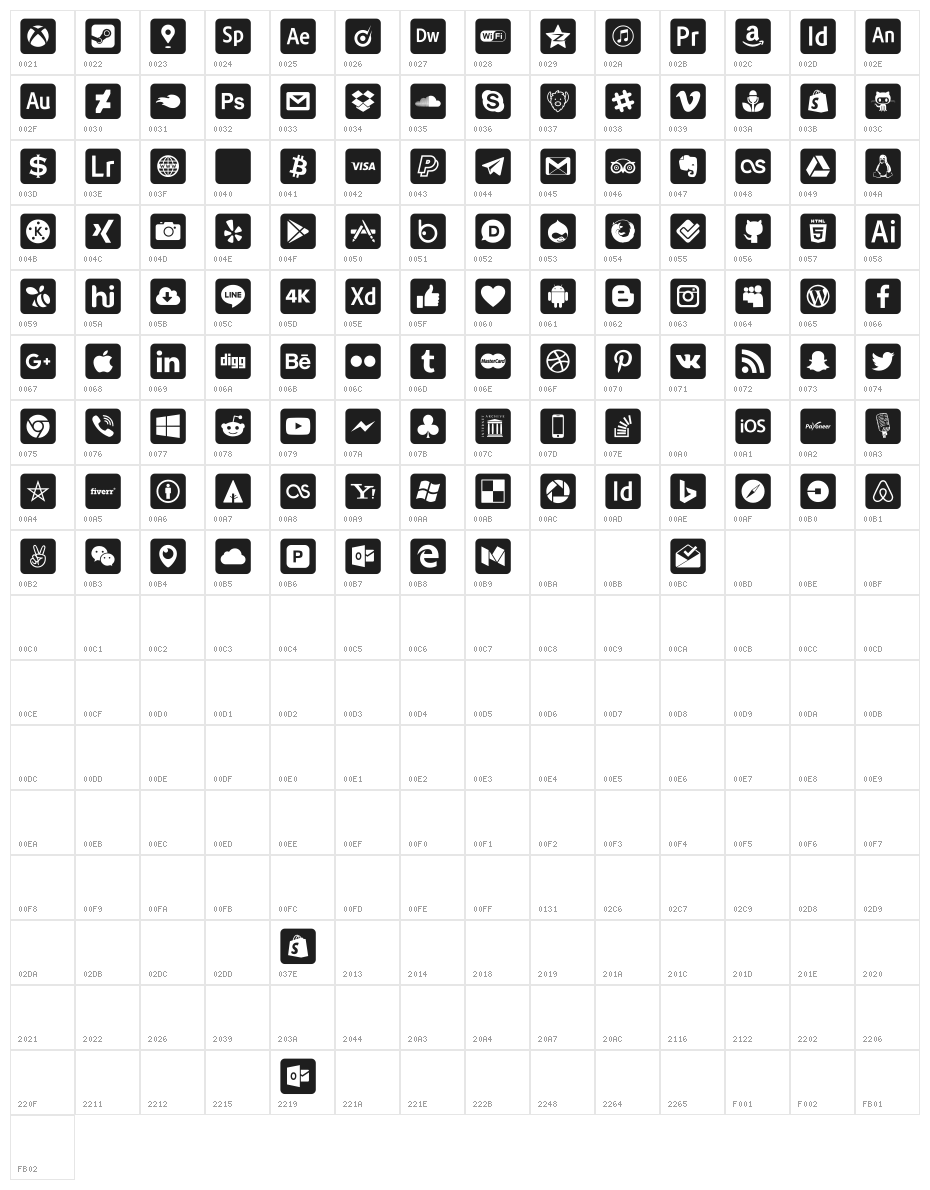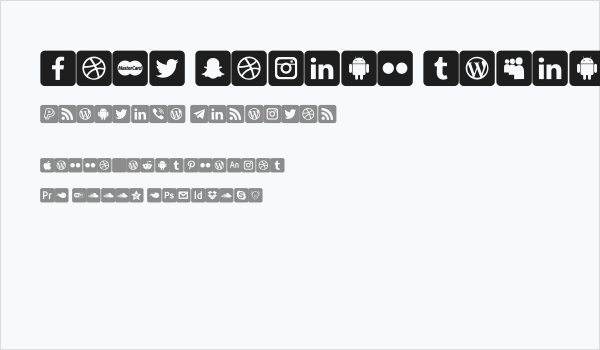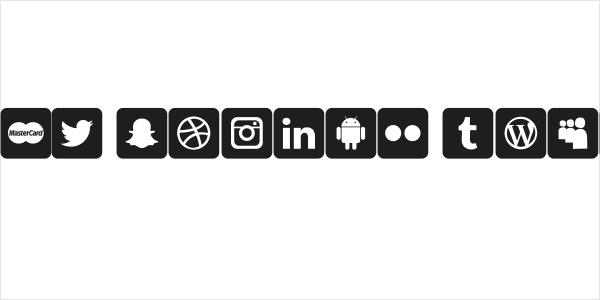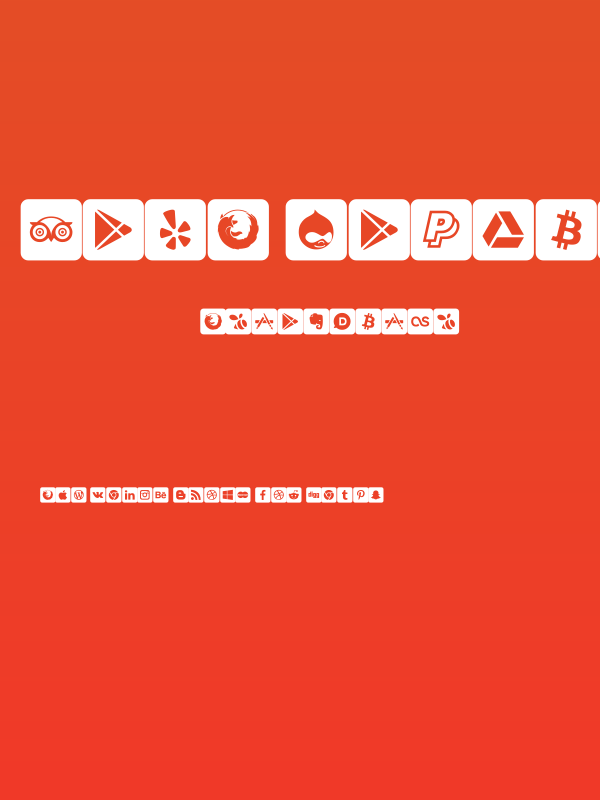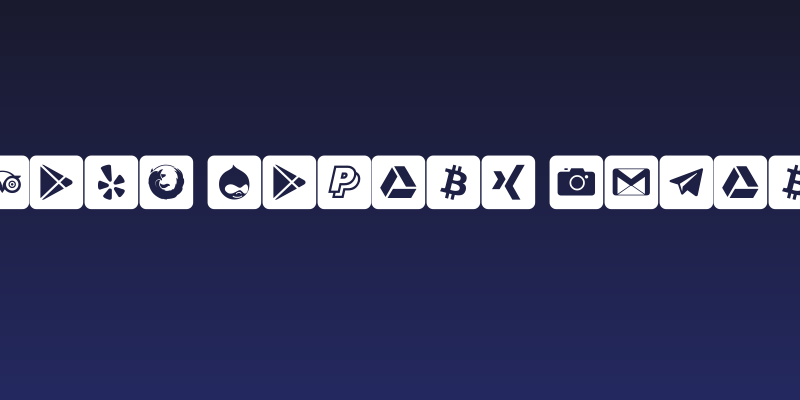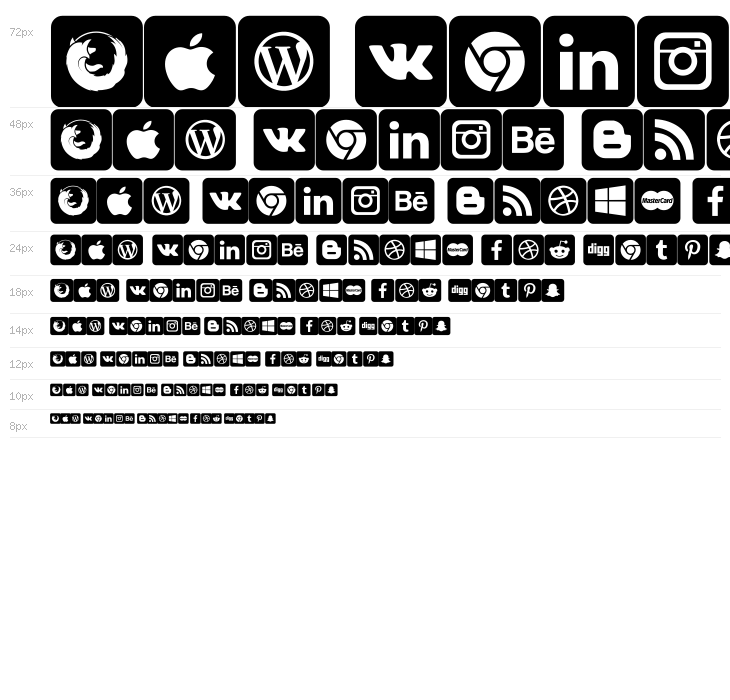
font social media Font
font social media Description
A collection of social media and tech brand icons, each enclosed in a rounded black square, featuring white simplified logos for high contrast and easy recognition.
| Overall Style | Modern, Minimalist, Decorative |
| Use Case | Icons, UI elements, Social media links, Branding |
| Proposed Projects | App interfaces, website footers, social media banners, presentations, digital portfolios. |